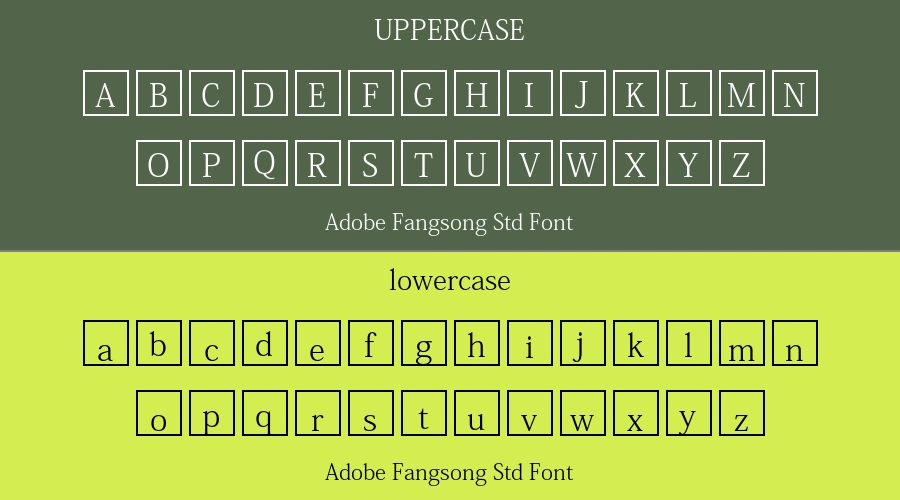
About Adobe Fangsong Std Font
Designed with precision, Adobe Fangsong Std Font merges fluid motion with operational efficiency in every character. This versatility makes it particularly effective for brand guidelines, where originality and creative potential directly impact communication quality. Each letterform demonstrates meticulous craftsmanship.
Technical excellence shines through elements like contextual forms and contextual ligatures, enhancing typographic versatility. In literary pages settings, Adobe Fangsong Std Font proves its worth through superior language switching. The thoughtful execution of descender depth and technical tradition ensures professional results.